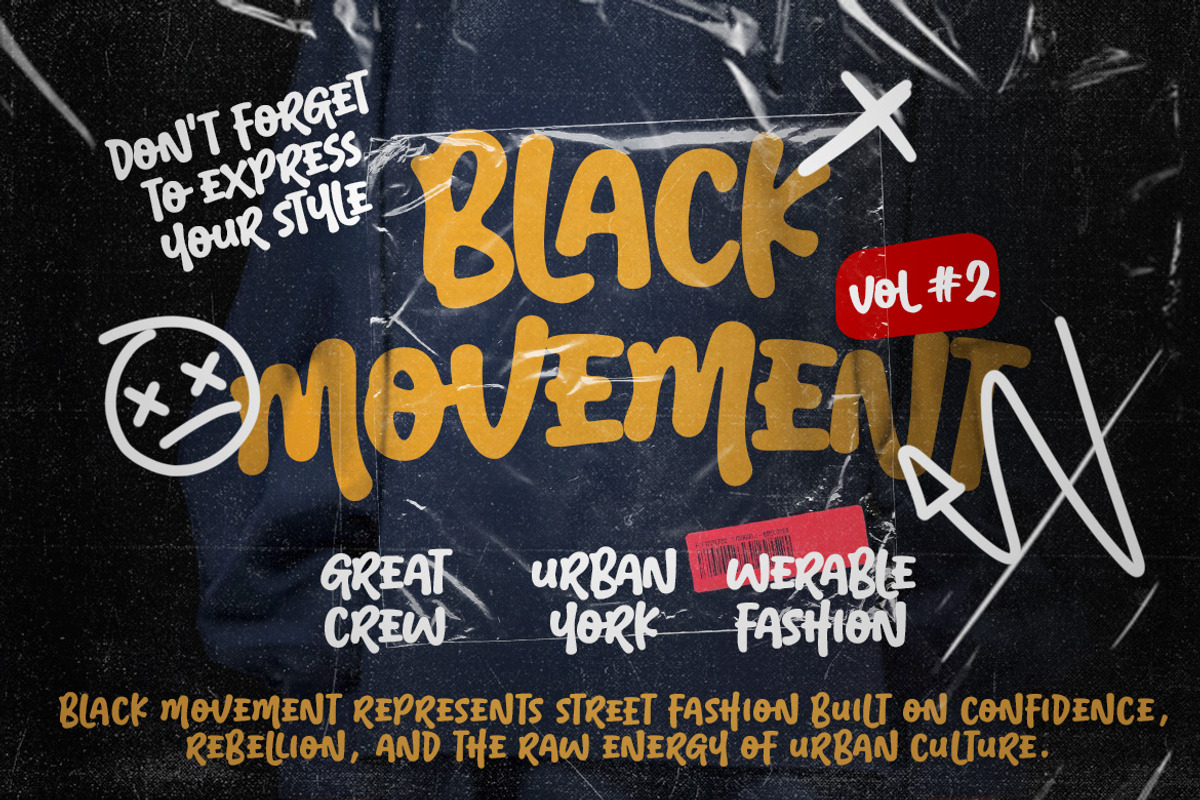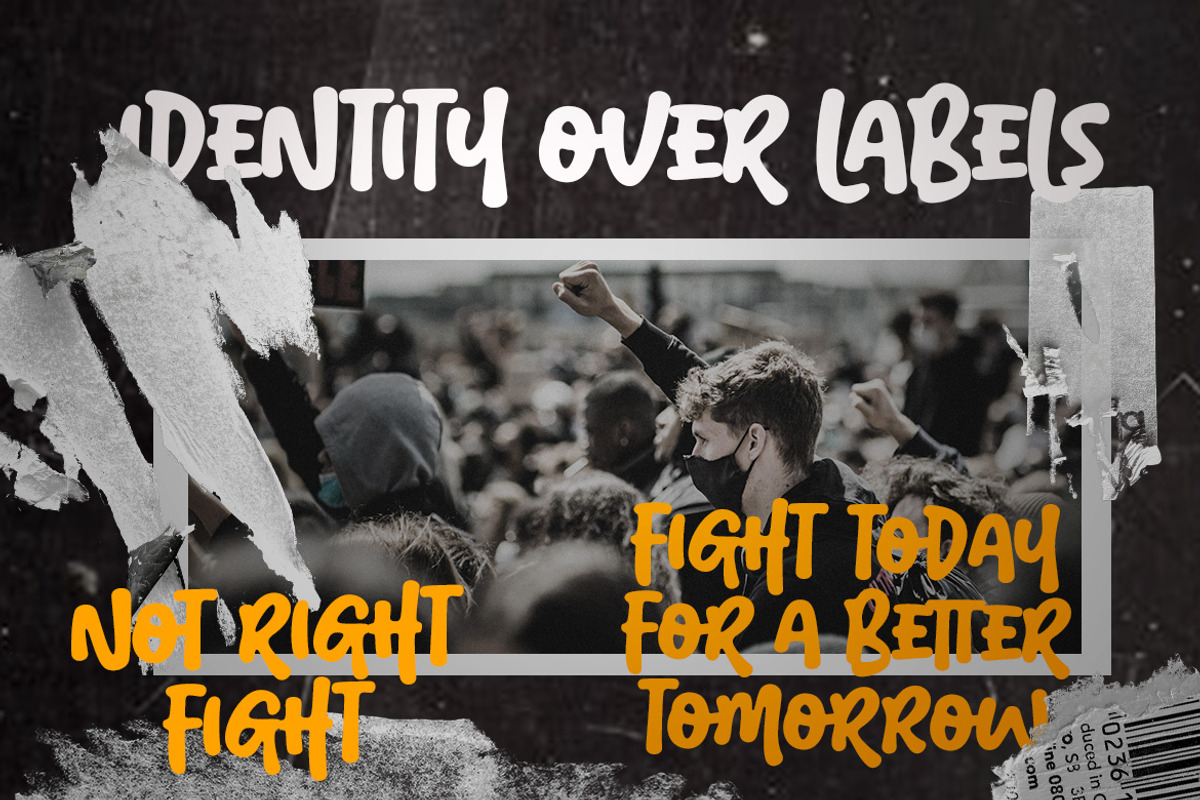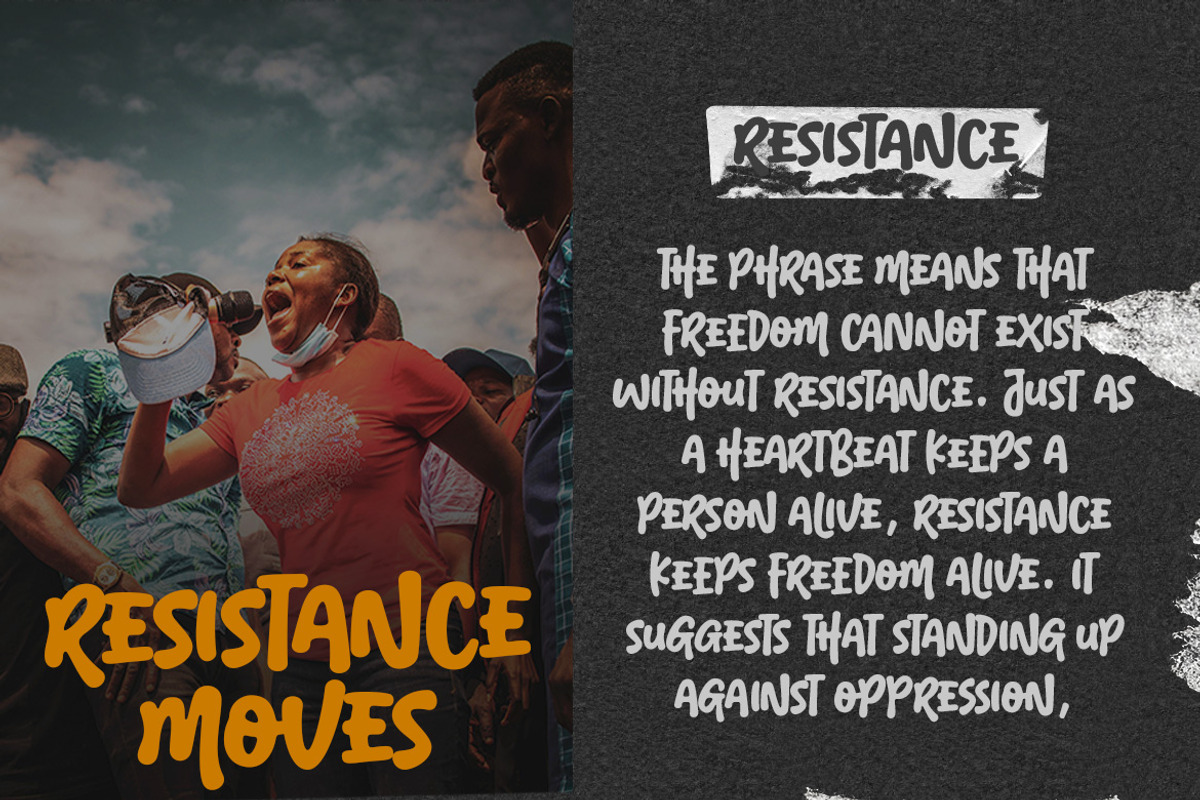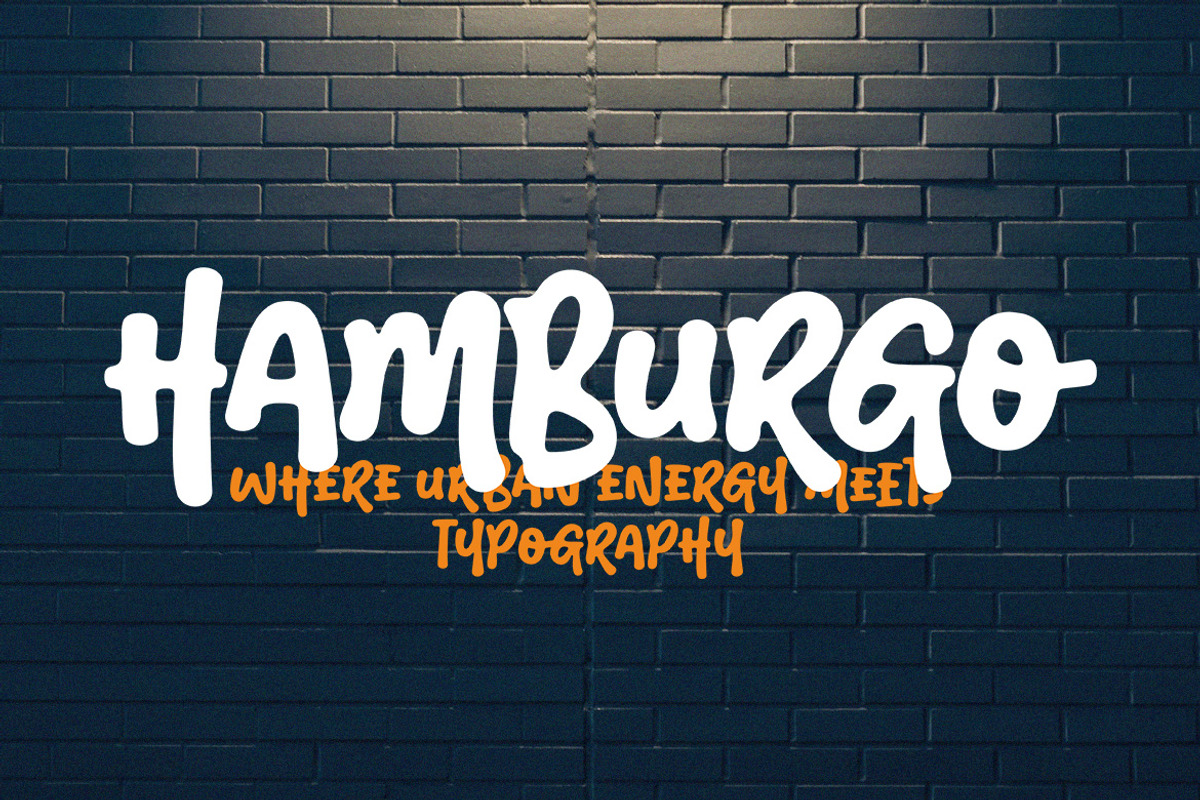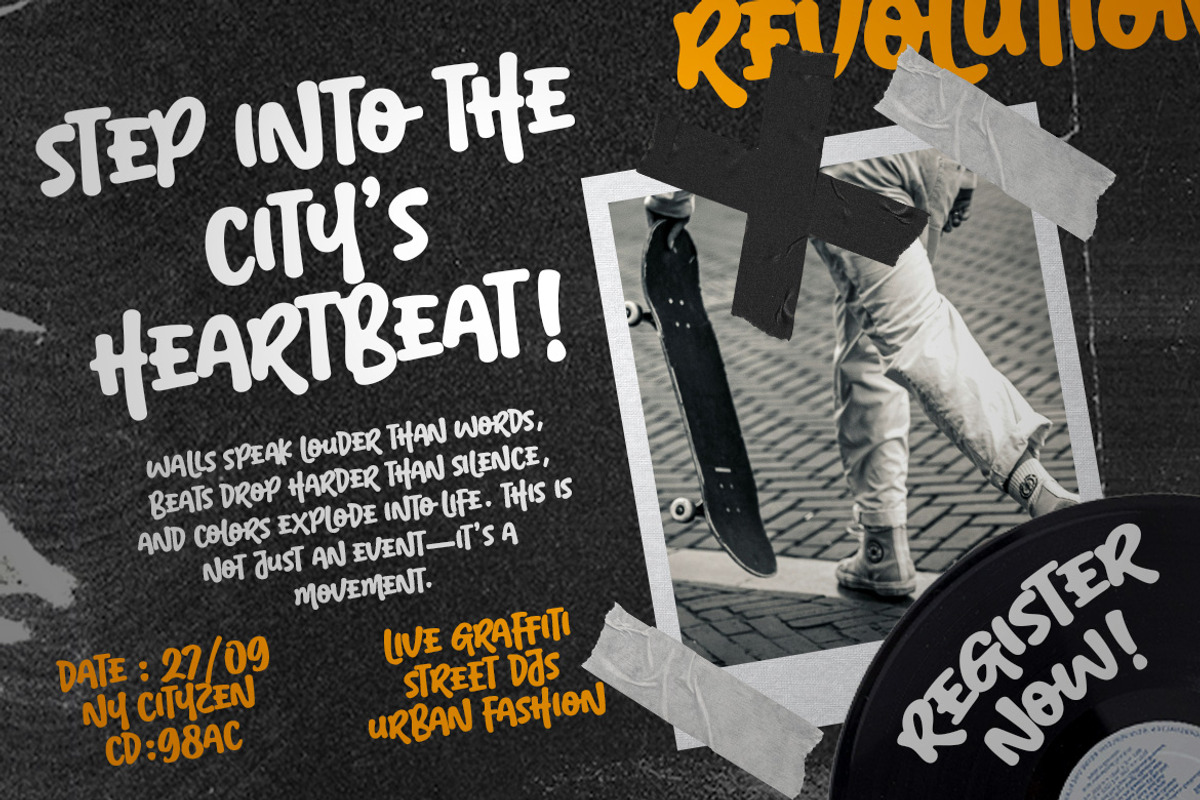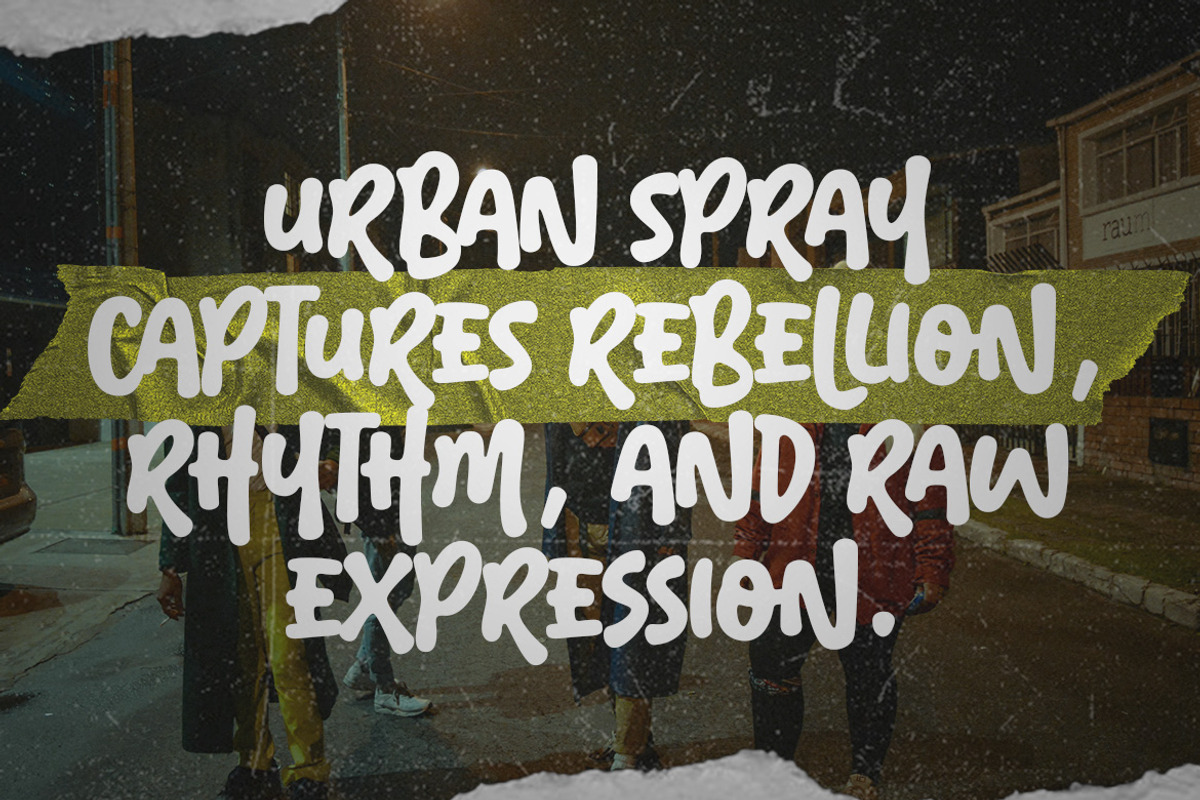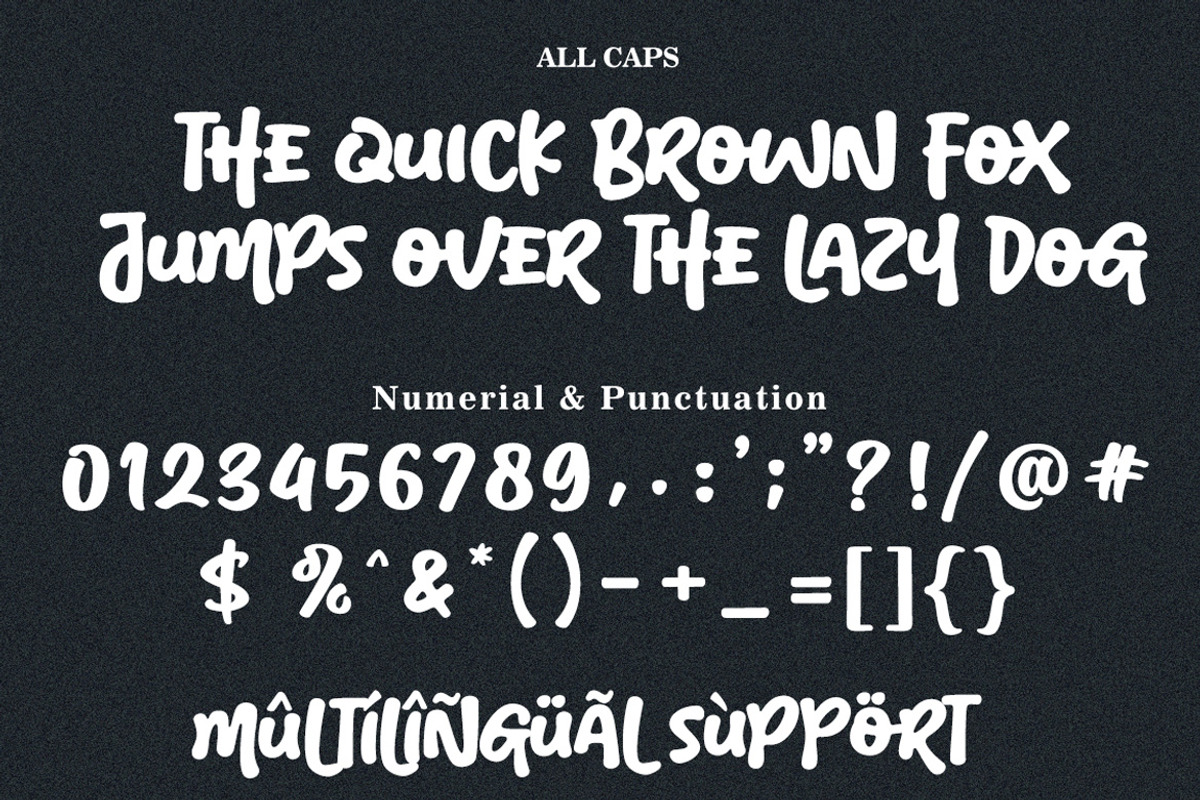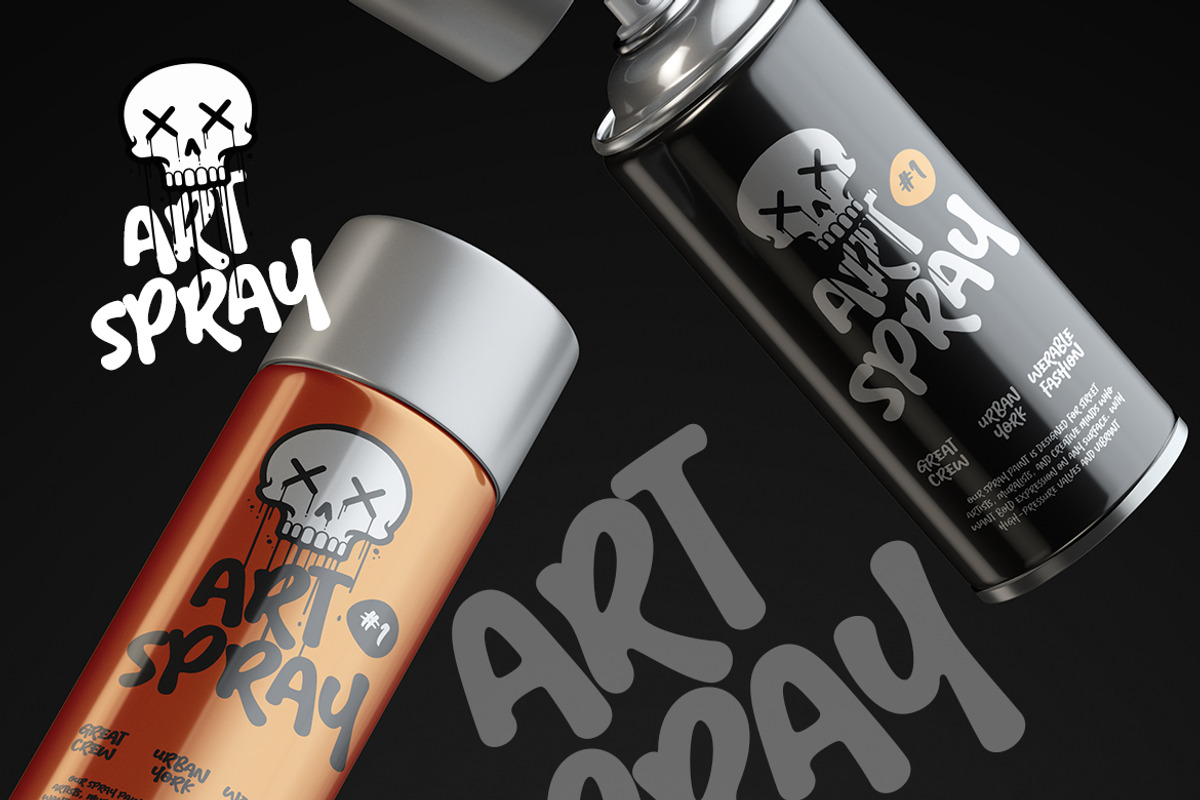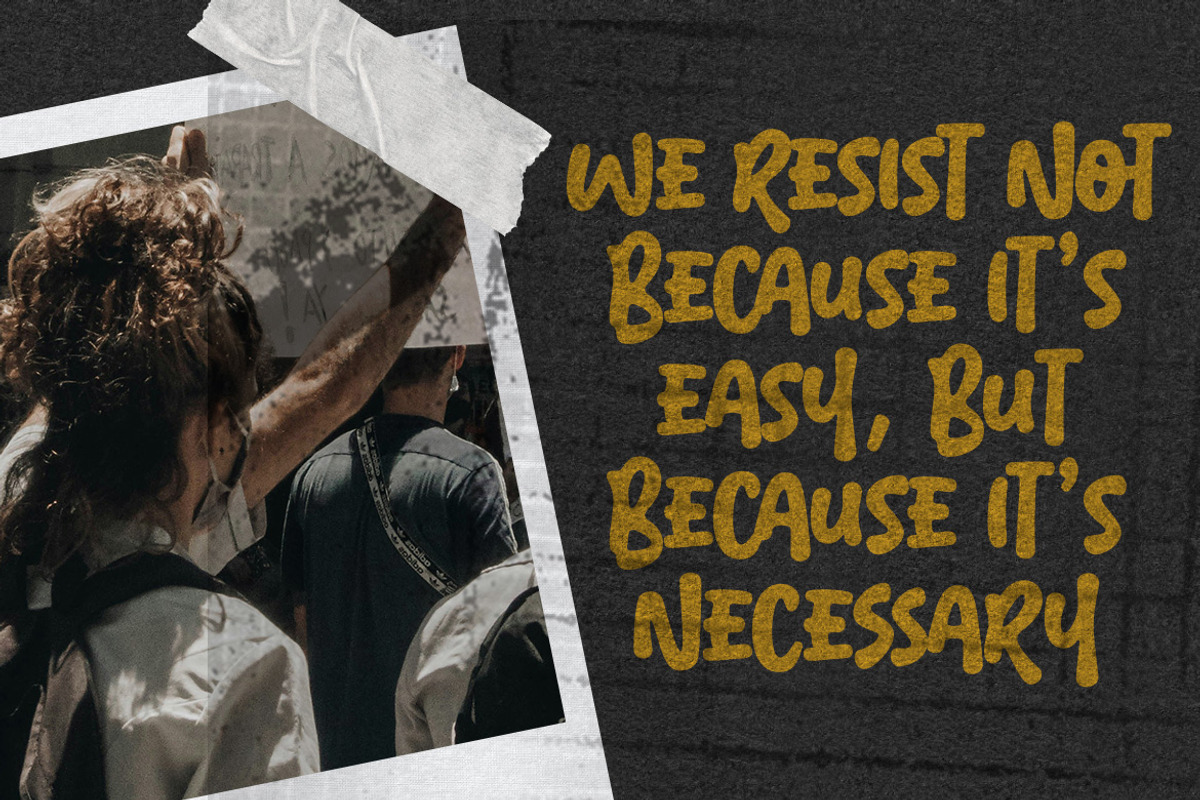
Hamburgo - Urban Graffiti Font
Introducing "Hamburgo - Urban street Font" This font captures the bold energy and attitude of city life, with strong, dynamic letterforms inspired by street culture and graffiti aesthetics. Perfect for posters, apparel, branding, and social media, it turns every word into a powerful statement, reflecting the rhythm, movement, and raw spirit of the streets while remaining versatile for modern design projects.